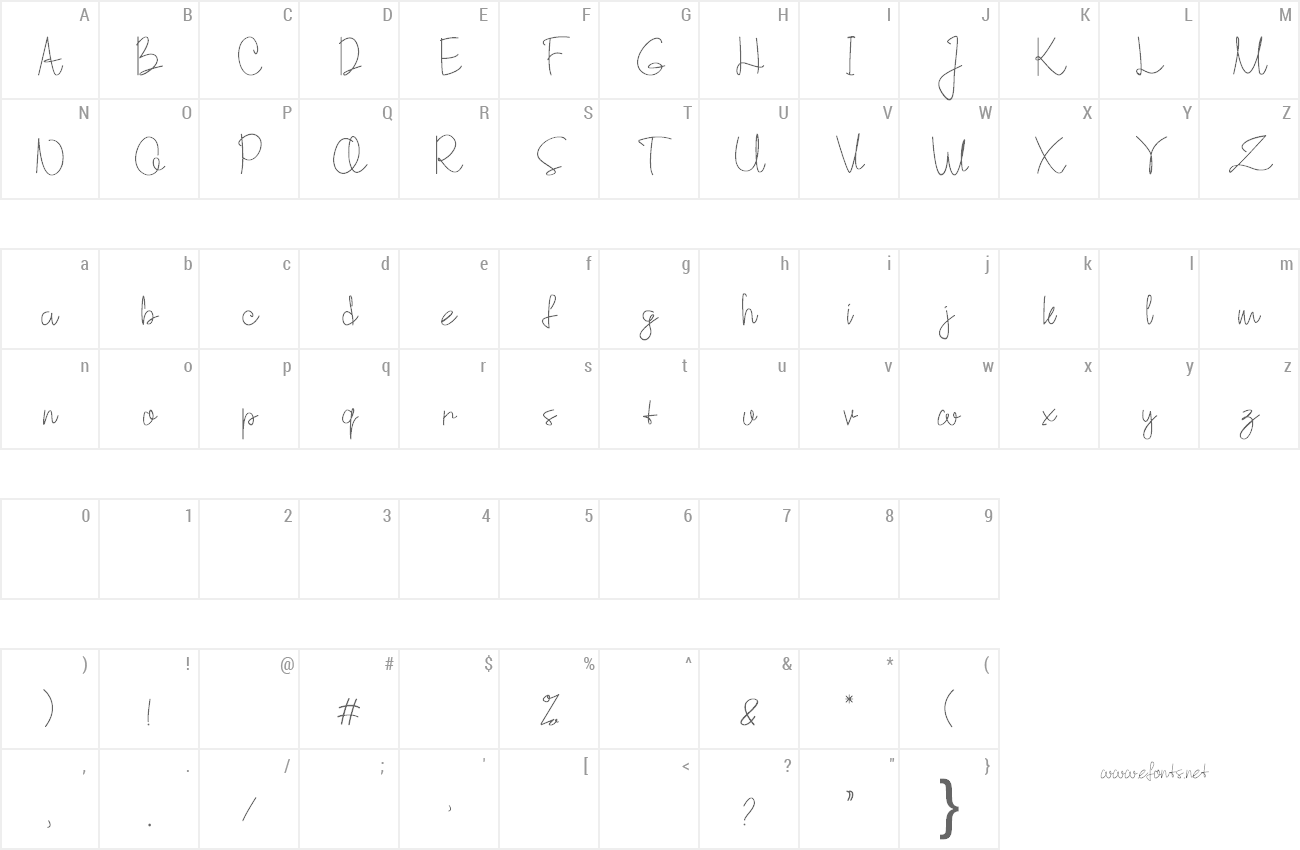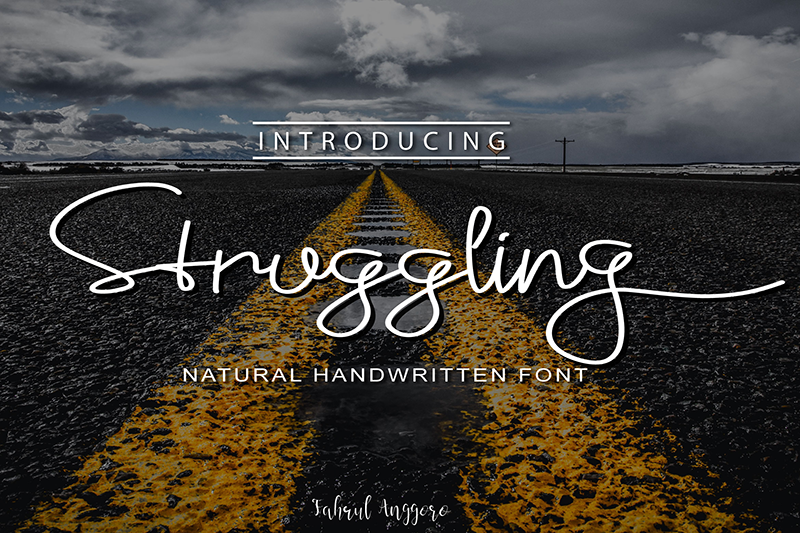
Preview and download Struggling Font. Created by Mohamad Fahrul Anggoro in Script Handwritten styles with Free for personal use license.
| Font name: | Struggling |
| Author: | Mohamad Fahrul Anggoro |